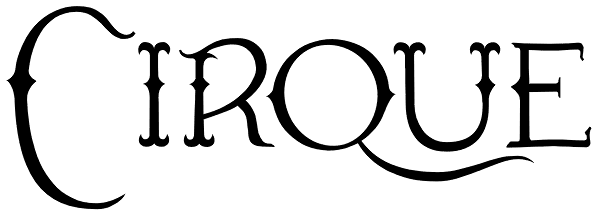
Cirque
SPECIAL OFFER: Buy the full Aegean family, and get Cirque for free. It will make Cirque much more powerful and useful for larger projects. Cirque is a lively Western/Circus/Victorian/Whatever font—it'll fit in wherever you want to stick it to old...